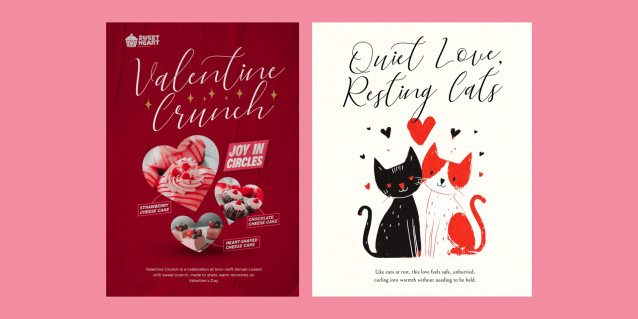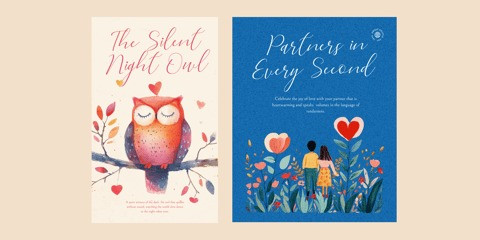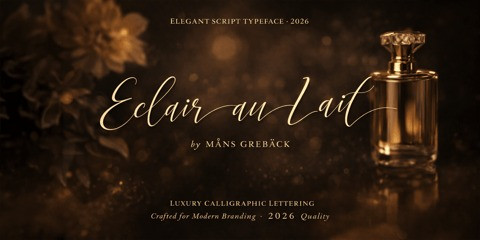
Eclair Au Lait Font
Eclair Au Lait Font is an elegant script typeface with a quick sense of movement. It blends classic calligraphic structure with a light, modern touch, creating lettering that feels graceful without being rigid.
The strokes are wild and flowing, with subtle contrast and carefully shaped curves. Letters connect naturally, and the rhythm stays calm and balanced even in longer words. The style is expressive yet controlled, giving the text a warm appearance.
The font is built with advanced OpenType functionality and guaranteed top-notch quality, containing stylistic and contextual alternates, ligatures and more automatic and manual features; all to give you full control and customizability.
It has extensive lingual support, covering all Latin-based languages, from North Europa to South Africa, from America to South-East Asia. It contains all characters and symbols you’ll ever need, including all punctuation and numbers.